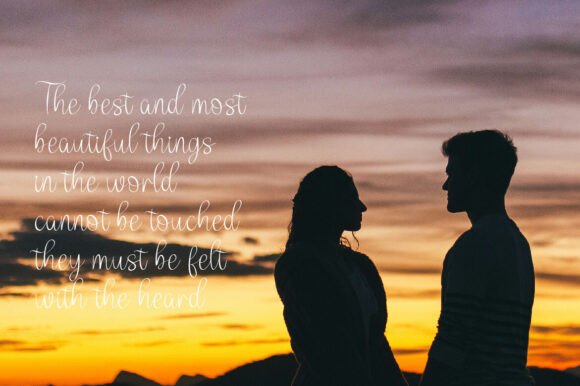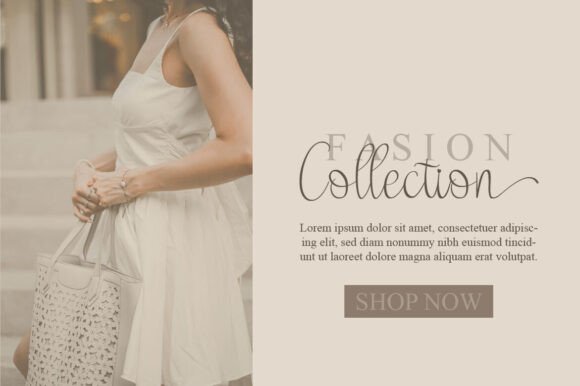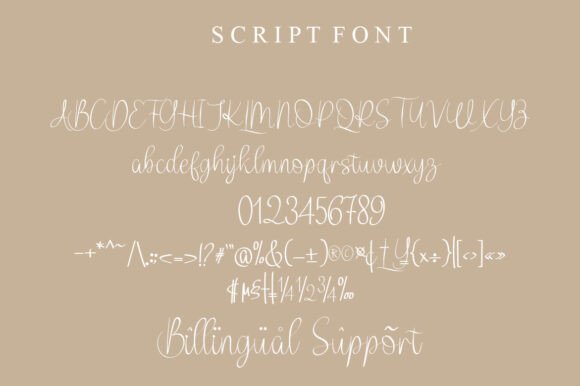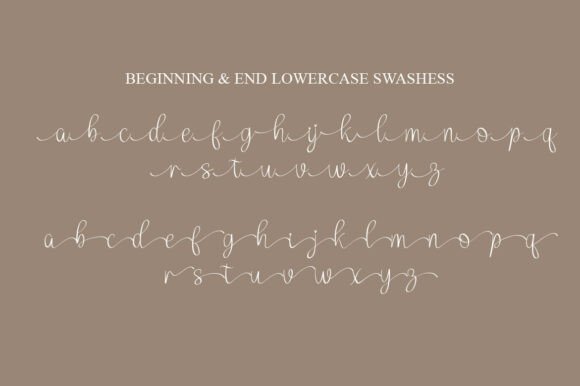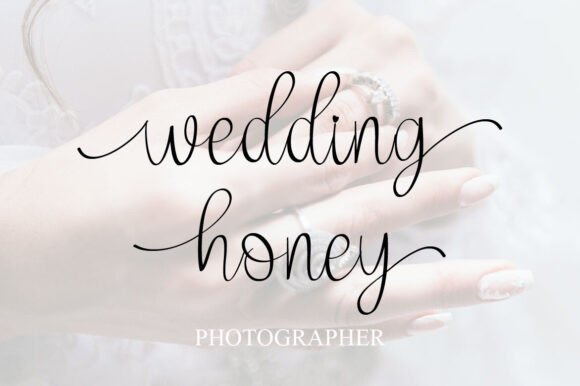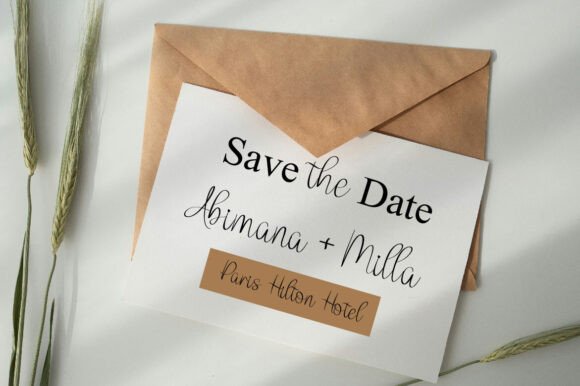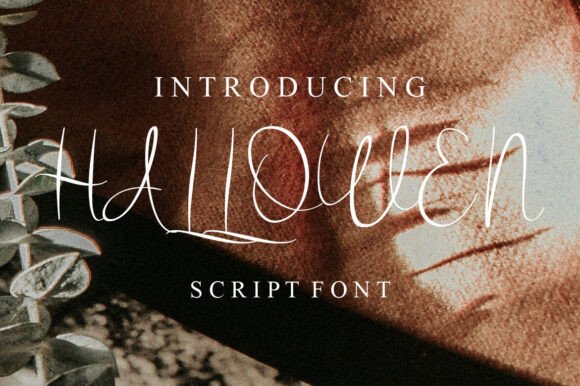
Unveiling Hallowen: The Delightful Handwritten Script Font for Whimsical Designs
Are you tired of using the same old fonts for your design projects? Look no further than Hallowen, a charming handwritten script font that is sure to inject a light-hearted and cheerful essence into every design. With its whimsical characters and unmistakable twist of joy and cuteness, Hallowen is the ultimate tool for sleek, sophisticated design endeavors.
The Characteristics of Hallowen Font
Hallowen font boasts a modern, stylish personality that extends from its clean lines and playful curves. Its simplicity and readability make it an effortless choice for any creative project you have in mind. Whether you’re designing a logo, wedding invitation, quote, or magazine headline, Hallowen lends a polished and professional touch to various tasks.
The Versatility of Hallowen Font
One of the standout features of Hallowen font is its versatility. Its unique blend of playfulness and sophistication makes it suitable for a wide range of design projects. Here are some examples of how you can use Hallowen font:
- Logos: Create a memorable and eye-catching logo for your brand with Hallowen font. Its whimsical characters and clean lines make it perfect for businesses that want to convey a sense of fun and approachability.
- Wedding Invitations: Add a touch of elegance and sophistication to your wedding invitations with Hallowen font. Its playful curves and modern style make it perfect for couples who want to convey their unique personality.
- Quotes: Use Hallowen font to add a touch of whimsy and inspiration to your quotes. Its clean lines and readable text make it perfect for social media posts, posters, and flyers.
- Magazine Headlines: Create attention-grabbing headlines with Hallowen font. Its modern style and playful curves make it perfect for magazine covers, blog posts, and article titles.
The Benefits of Using Hallowen Font
So why choose Hallowen font for your design projects? Here are some benefits of using this delightful handwritten script font:
- Unique and Eye-Catching: Hallowen font is sure to grab attention with its whimsical characters and playful curves. Its unique style makes it perfect for designers who want to stand out from the crowd.
- Easy to Read: Despite its playful style, Hallowen font is highly readable, making it perfect for body text and captions.
- Versatile: Hallowen font can be used for a wide range of design projects, from logos and wedding invitations to quotes and magazine headlines.
- Professional: Hallowen font lends a polished and professional touch to various tasks, making it perfect for designers who want to convey a sense of sophistication and elegance.
Tips for Using Hallowen Font Effectively
Here are some tips for using Hallowen font effectively in your design projects:
- Pair it with Other Fonts: Experiment with pairing Hallowen font with other fonts to create a unique and eye-catching combination.
- Use it for Headlines: Use Hallowen font for headlines and titles to add a touch of whimsy and playfulness to your design.
- Keep it Simple: Don’t be afraid to keep it simple and use Hallowen font on its own. Its clean lines and readable text make it perfect for body text and captions.
In conclusion, Hallowen font is a delightful handwritten script font that is sure to inject a light-hearted and cheerful essence into every design. Its whimsical characters, clean lines, and playful curves make it perfect for a wide range of design projects, from logos and wedding invitations to quotes and magazine headlines. With its versatility, readability, and professional style, Hallowen font is the ultimate tool for designers who want to elevate their design aesthetics to another dimension. So why not give Hallowen font a try and see the magic for yourself?